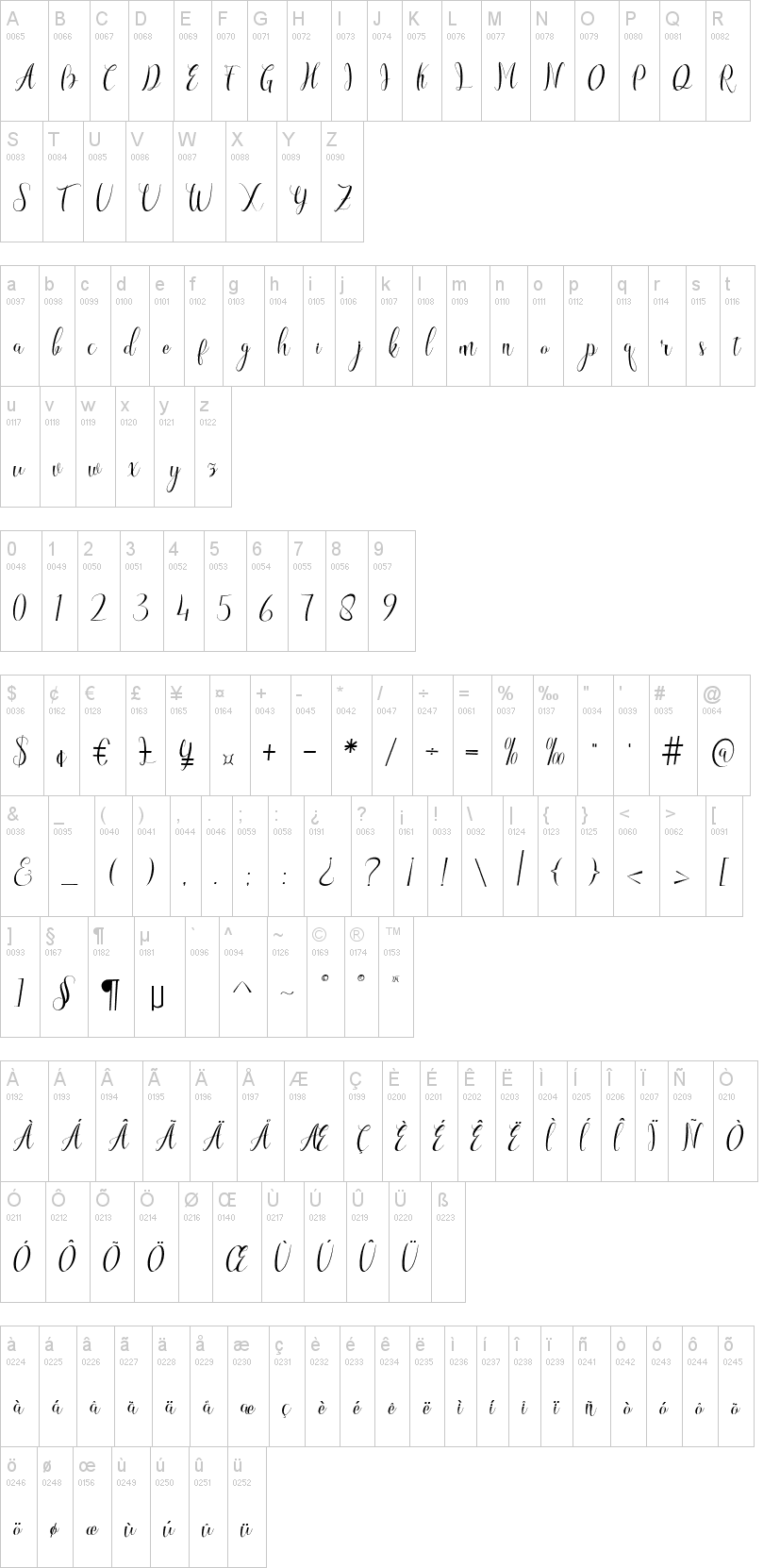
Amettha is a font that made the hand by having the character up and down like a dancer.Amettha has a very unique style of calligraphy, it is very suitable for use in the work of modern design.
The Features of this fonts is:
* Standart ligatures
* Stylistic Alternates<
* PUA Unicode (Private Use Areas)
Can be used for various purposes.such as headings, logos, wedding invitation, t-shirt, letterhead, lable, news, posters, badges etc.